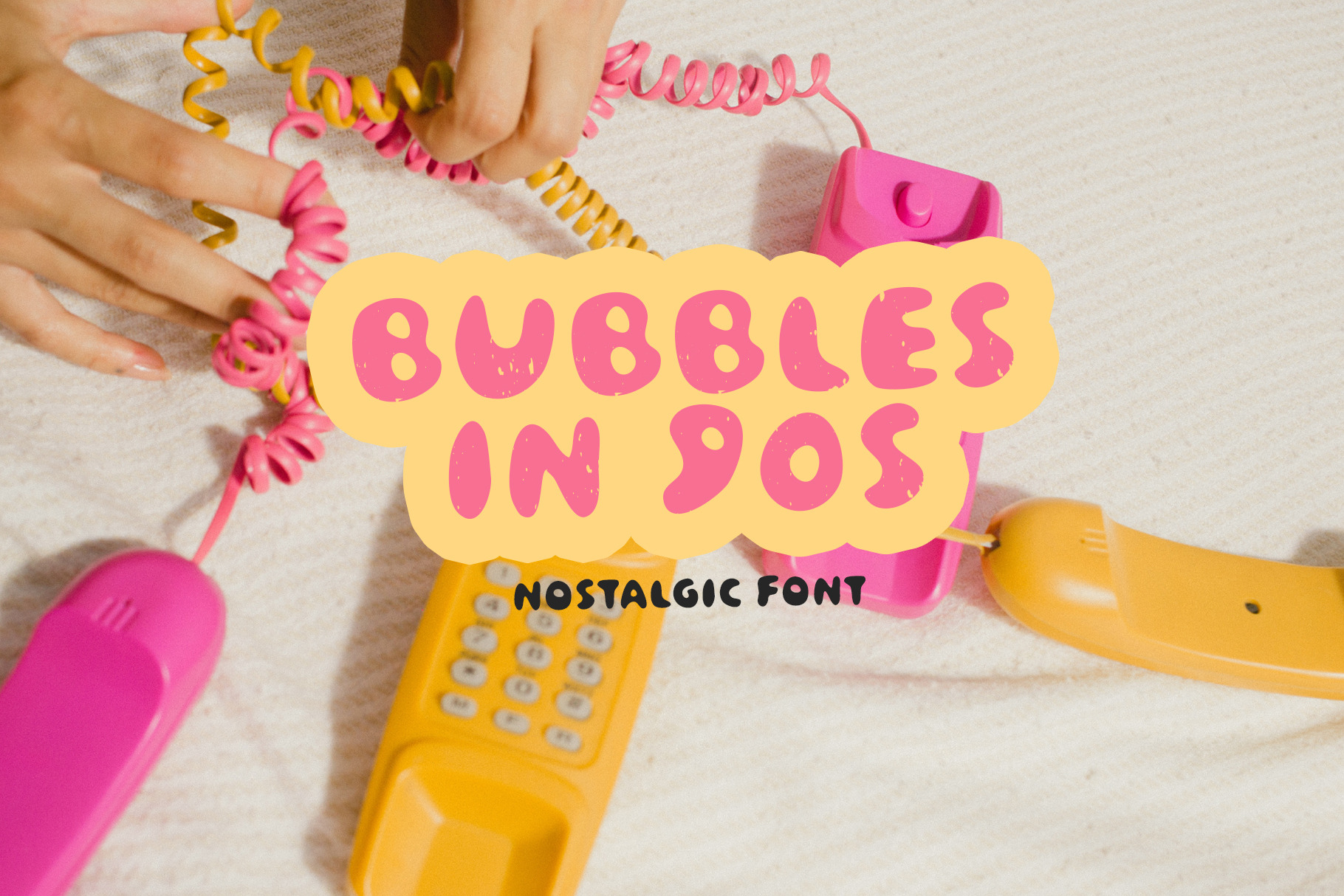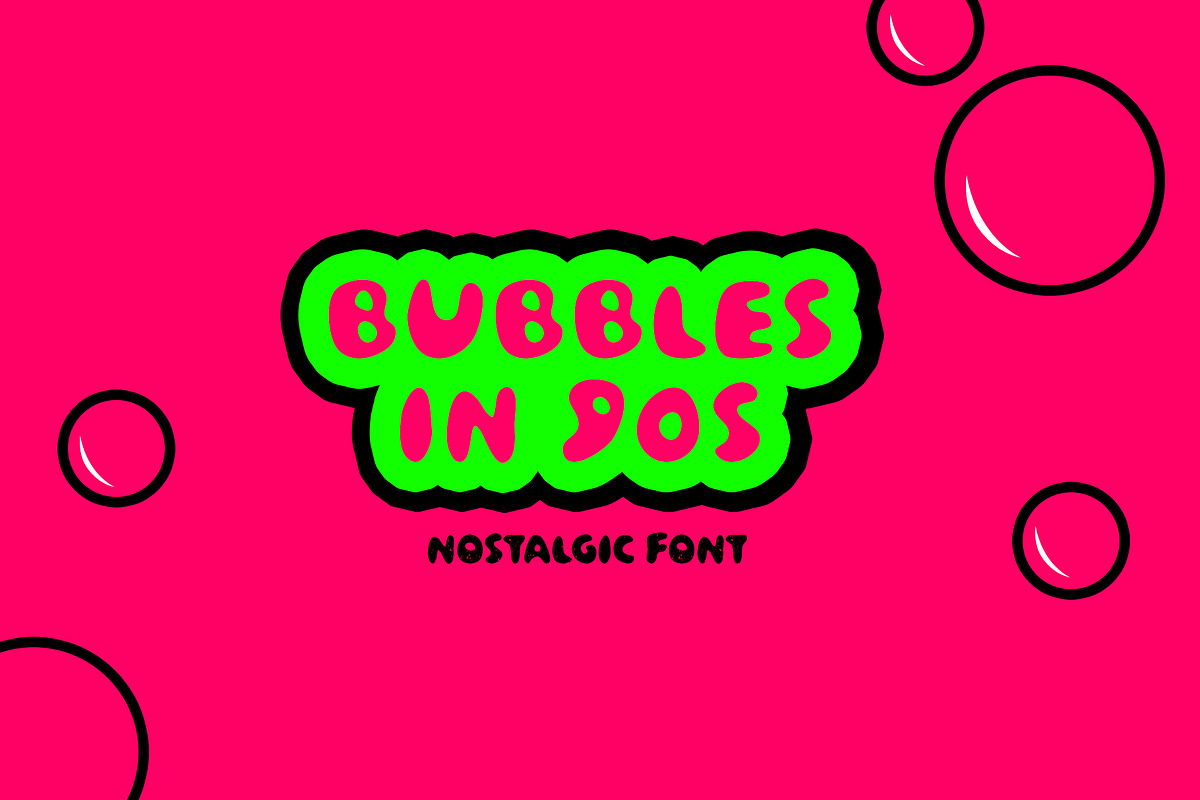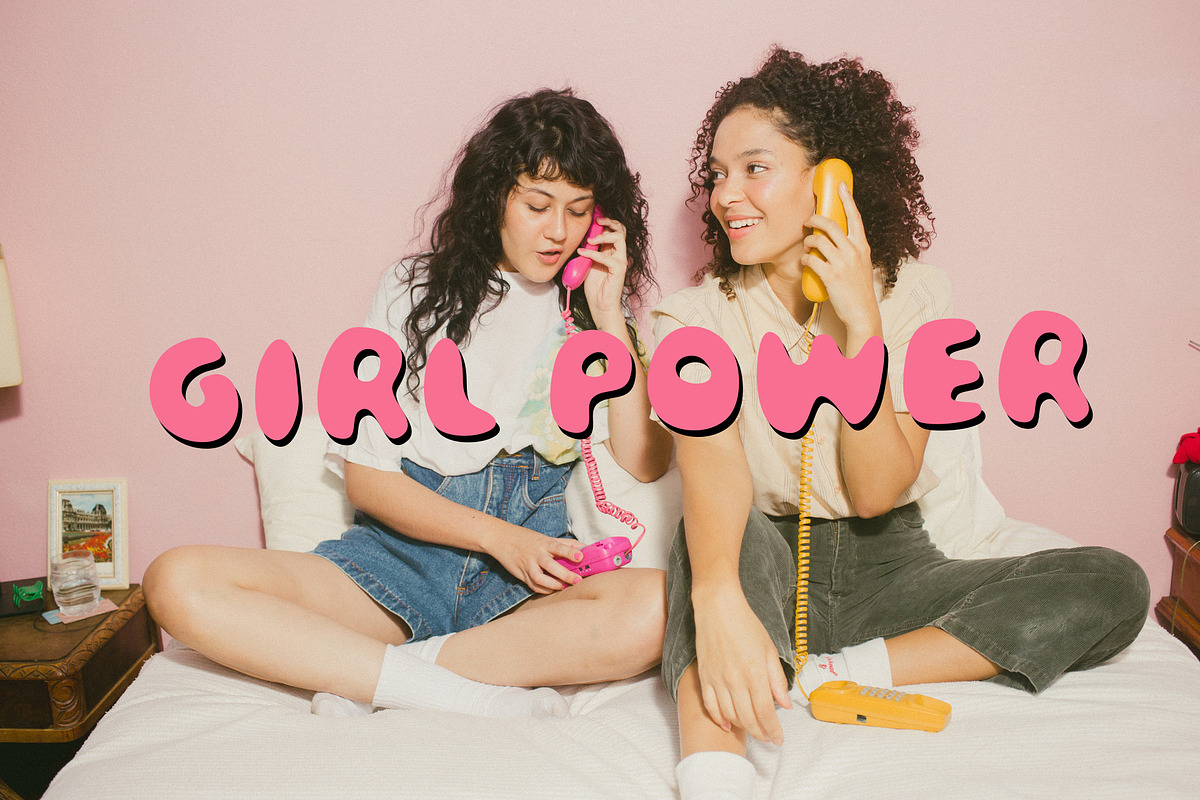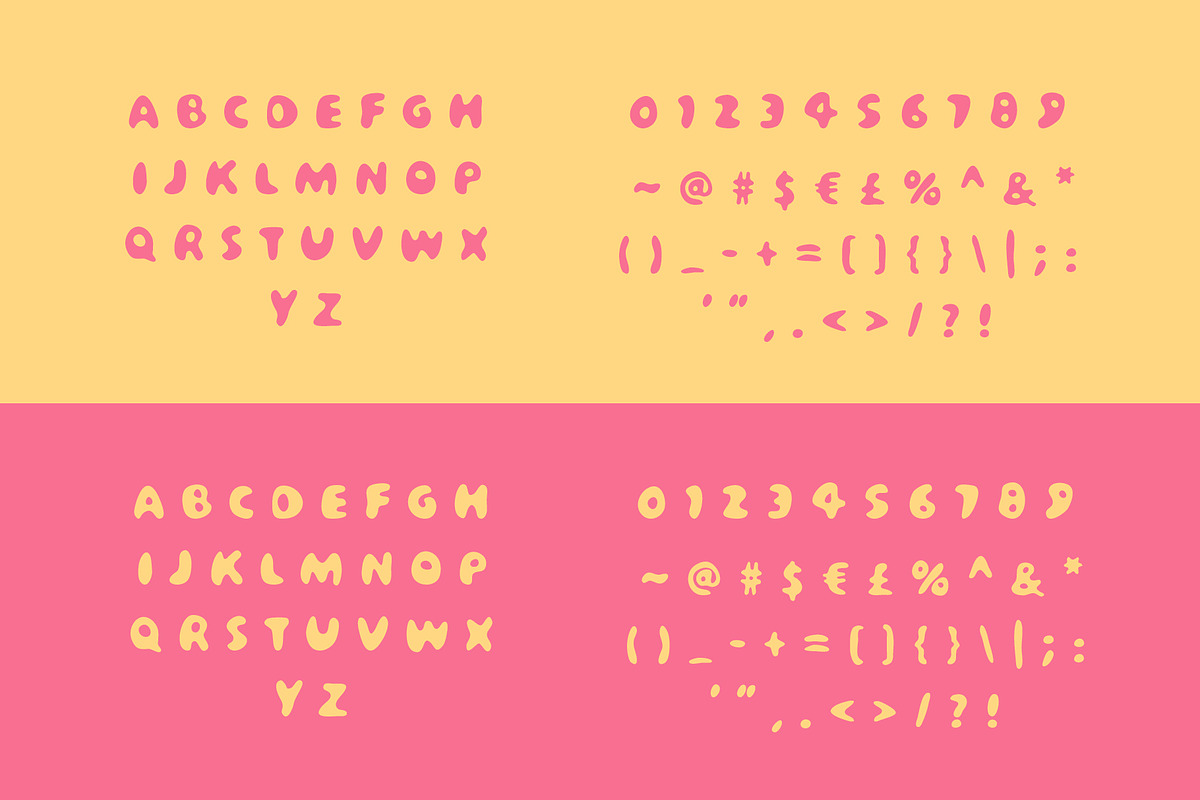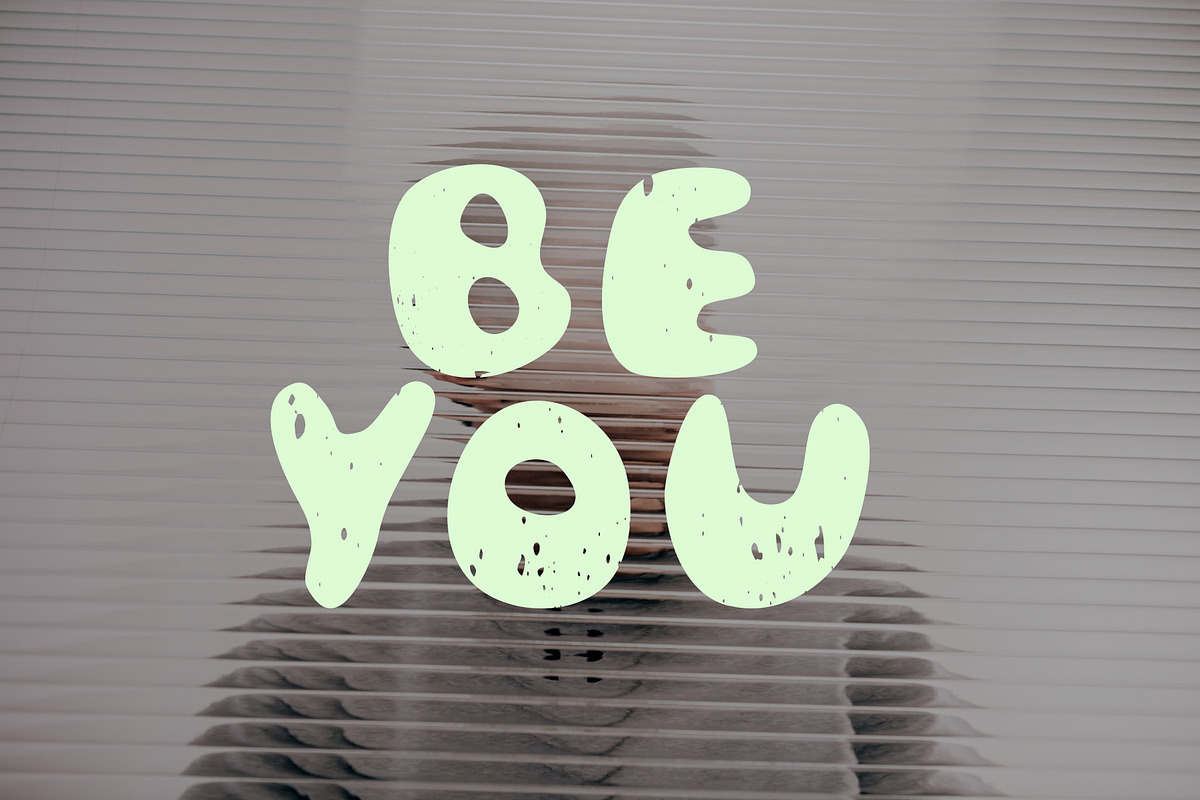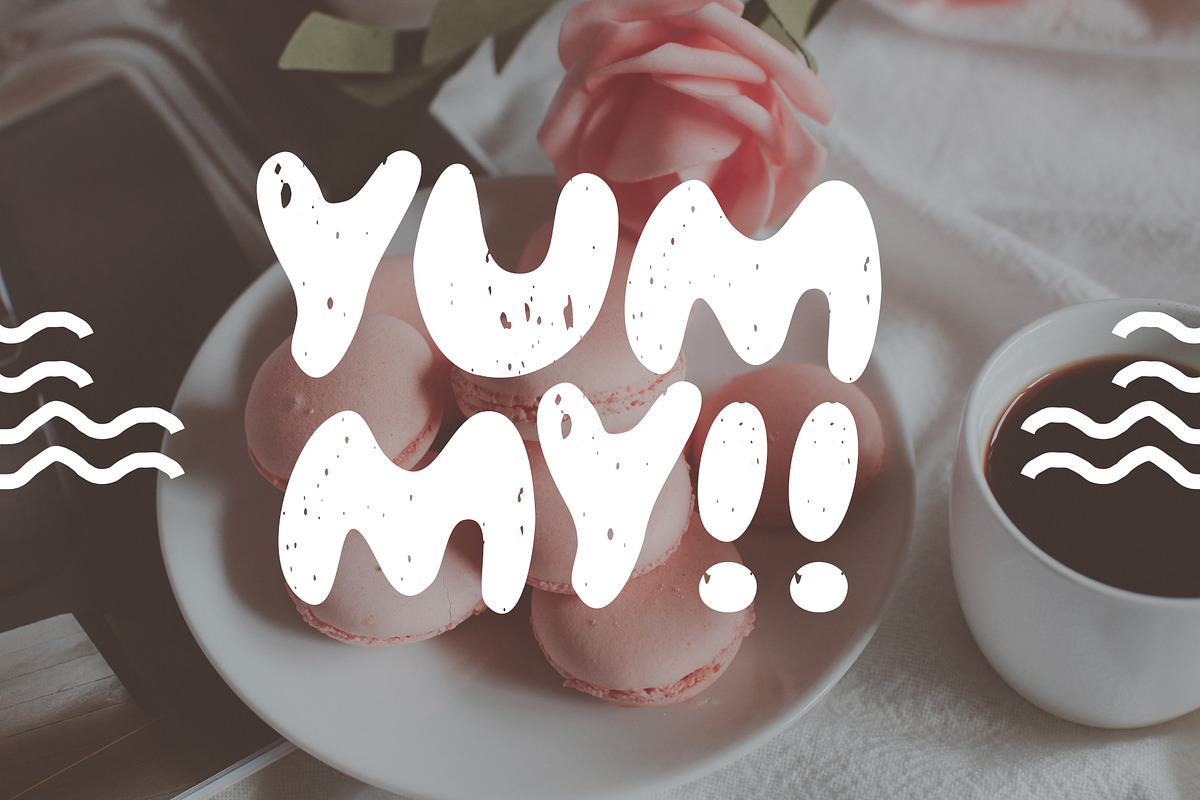
90s Nostalgic Font - Bubbles in 90s
Introducing 90s nostalgic old school uppercase font "Bubbles in 90s" and it's textured version "Bubbles in 90s TXR". It's soft and bubbly shapes reminds the stuff only 90's kids can remember. Use this trendy font when you need to give a nostalgic nineties and old-school feel to your designs.
This uppercase font works great in trendy, nostalgic design styles when you need a good accent for titles, headlines. It’s great for various print and web projects - blogs, invitations, flyers, posters, short quotes in social media, brochures, packaging, business cards, etc. It looks beautiful both in pastel colors and bright ones.
- Uppercase characters